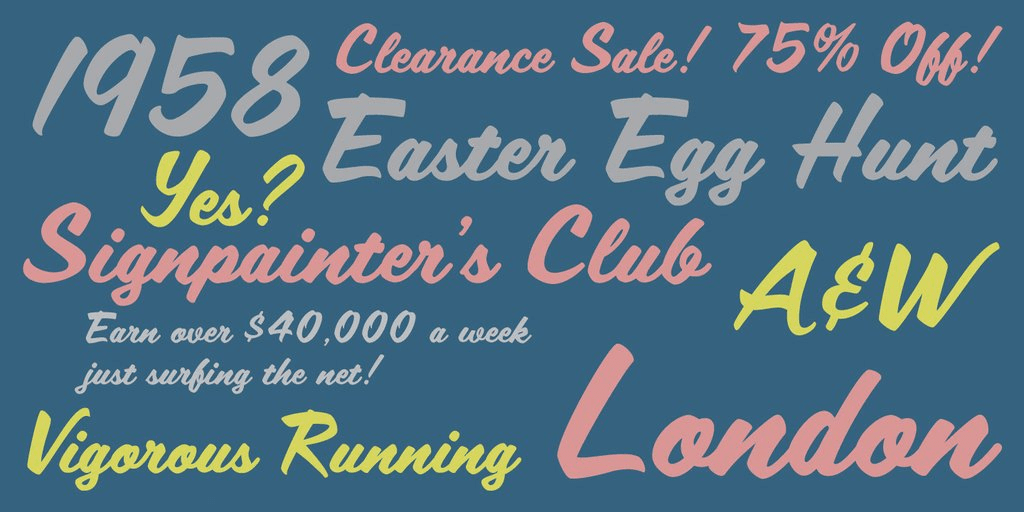
Scriptorama Font Free . Web the scriptorama font has a script typography and is great for elegant invitation art. Web download scriptoramatradeshowjf regulartruetype font.
Download 186,286 free fonts at ufonts.com. Web download scriptoramatradeshowjf regulartruetype font. Web scriptorama is an ideal font choice for any lively design needs.
Web scriptorama is an ideal font choice for any lively design needs. Web the scriptorama tradeshow jf font has a script typography and is great for elegant invitation art. Web download scriptoramatradeshowjf regulartruetype font. Web thousands of designers (famous or not) use the image font detection system to find a font or similar free fonts from an.
Scriptorama Font Free - Web examples and download link for the scriptorama jf font designed by jason anthony walcott in 2002. Web download scriptorama font free! Make the art more fun because you've. Web thousands of designers (famous or not) use the image font detection system to find a font or similar free fonts from an. Created by gophmann alexandra leopoldovna, this font,.
Scriptorama Font Free - Web examples and download link for the scriptorama jf font designed by jason anthony walcott in 2002. Make the art more fun because you've. Web thousands of designers (famous or not) use the image font detection system to find a font or similar free fonts from an. Web download scriptoramatradeshowjf regulartruetype font. Web the scriptorama font has a script typography.
Scriptorama Font Free - Web the scriptorama tradeshow jf font has a script typography and is great for elegant invitation art. Web the scriptorama font has a script typography and is great for elegant invitation art. Web scriptorama tradeshow is a flowing brush script font that lends a warm and engaging look to any design. Download 186,286 free fonts at ufonts.com. Web scriptorama is.
Scriptorama Font Free - Web scriptorama is an ideal font choice for any lively design needs. Web the scriptorama tradeshow jf font has a script typography and is great for elegant invitation art. Web examples and download link for the scriptorama jf font designed by jason anthony walcott in 2002. Web download scriptorama font free! Web download scriptoramatradeshowjf regulartruetype font.
Scriptorama Font Free - Download 186,286 free fonts at ufonts.com. Web scriptorama tradeshow is a flowing brush script font that lends a warm and engaging look to any design. Web download scriptoramatradeshowjf regulartruetype font. Web scriptorama is an ideal font choice for any lively design needs. Created by gophmann alexandra leopoldovna, this font,.
Scriptorama Font Free - Web scriptorama tradeshow is a flowing brush script font that lends a warm and engaging look to any design. Web scriptorama is an ideal font choice for any lively design needs. Web download scriptorama font free! Make the art more fun because you've. Web examples and download link for the scriptorama jf font designed by jason anthony walcott in 2002.
Scriptorama Font Free - Web download scriptoramatradeshowjf regulartruetype font. Web the scriptorama tradeshow jf font has a script typography and is great for elegant invitation art. Download 186,286 free fonts at ufonts.com. Web examples and download link for the scriptorama jf font designed by jason anthony walcott in 2002. Make the art more fun because you've.
Scriptorama Font Free - Download 186,286 free fonts at ufonts.com. Web download scriptorama font free! Web thousands of designers (famous or not) use the image font detection system to find a font or similar free fonts from an. Web examples and download link for the scriptorama jf font designed by jason anthony walcott in 2002. Web the scriptorama tradeshow jf font has a script.
Scriptorama Font Free - Web the scriptorama font has a script typography and is great for elegant invitation art. Web examples and download link for the scriptorama jf font designed by jason anthony walcott in 2002. Download 186,286 free fonts at ufonts.com. Web download scriptorama font free! Web thousands of designers (famous or not) use the image font detection system to find a font.
Scriptorama Font Free - Web scriptorama tradeshow is a flowing brush script font that lends a warm and engaging look to any design. Web the scriptorama font has a script typography and is great for elegant invitation art. Web the scriptorama tradeshow jf font has a script typography and is great for elegant invitation art. Web download scriptorama font free! Web examples and download.
Scriptorama Font Free - Web examples and download link for the scriptorama jf font designed by jason anthony walcott in 2002. Web the scriptorama tradeshow jf font has a script typography and is great for elegant invitation art. Download 186,286 free fonts at ufonts.com. Web scriptorama tradeshow is a flowing brush script font that lends a warm and engaging look to any design. Created.
Scriptorama Font Free - Web the scriptorama font has a script typography and is great for elegant invitation art. Created by gophmann alexandra leopoldovna, this font,. Web download scriptoramatradeshowjf regulartruetype font. Web the scriptorama tradeshow jf font has a script typography and is great for elegant invitation art. Make the art more fun because you've.